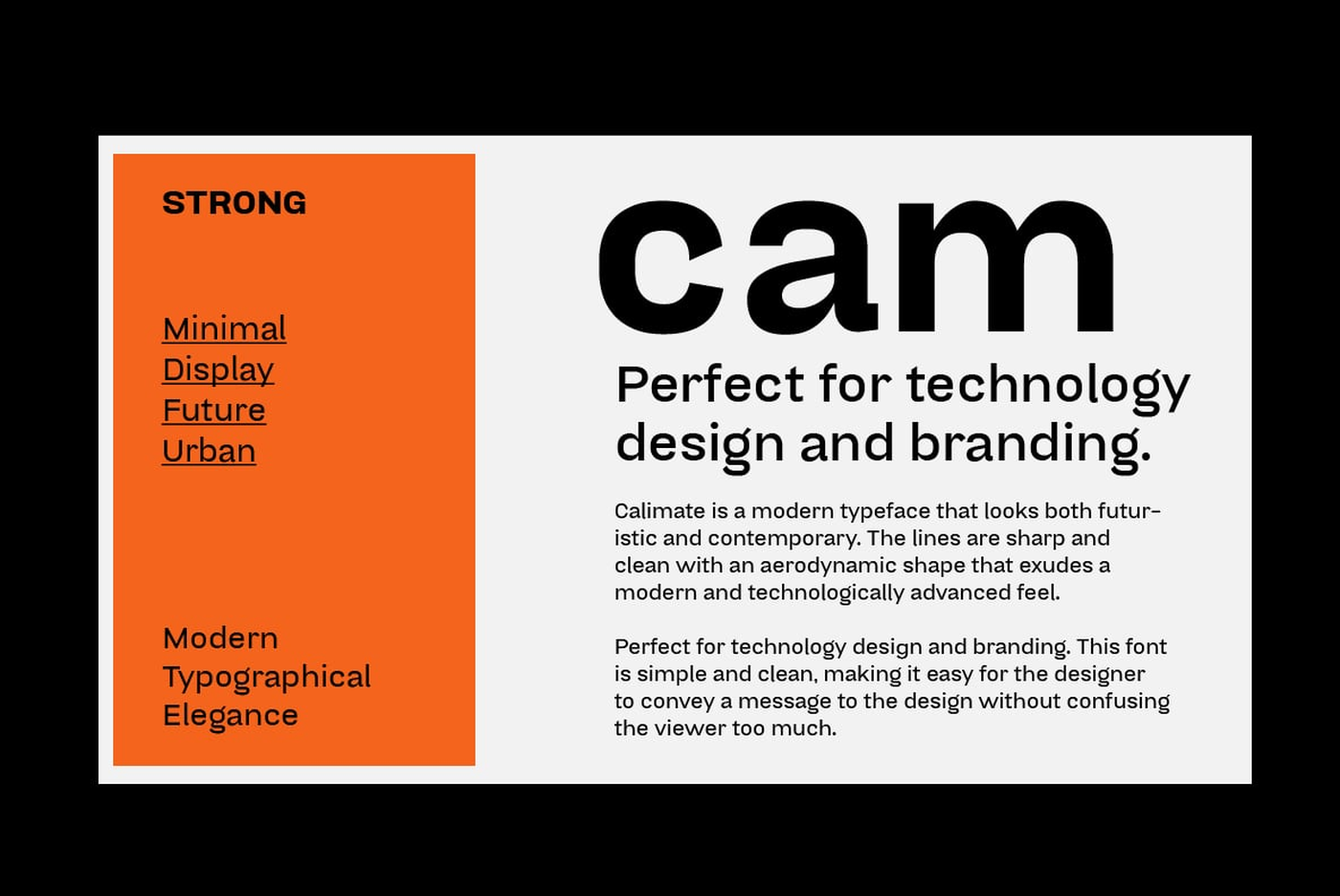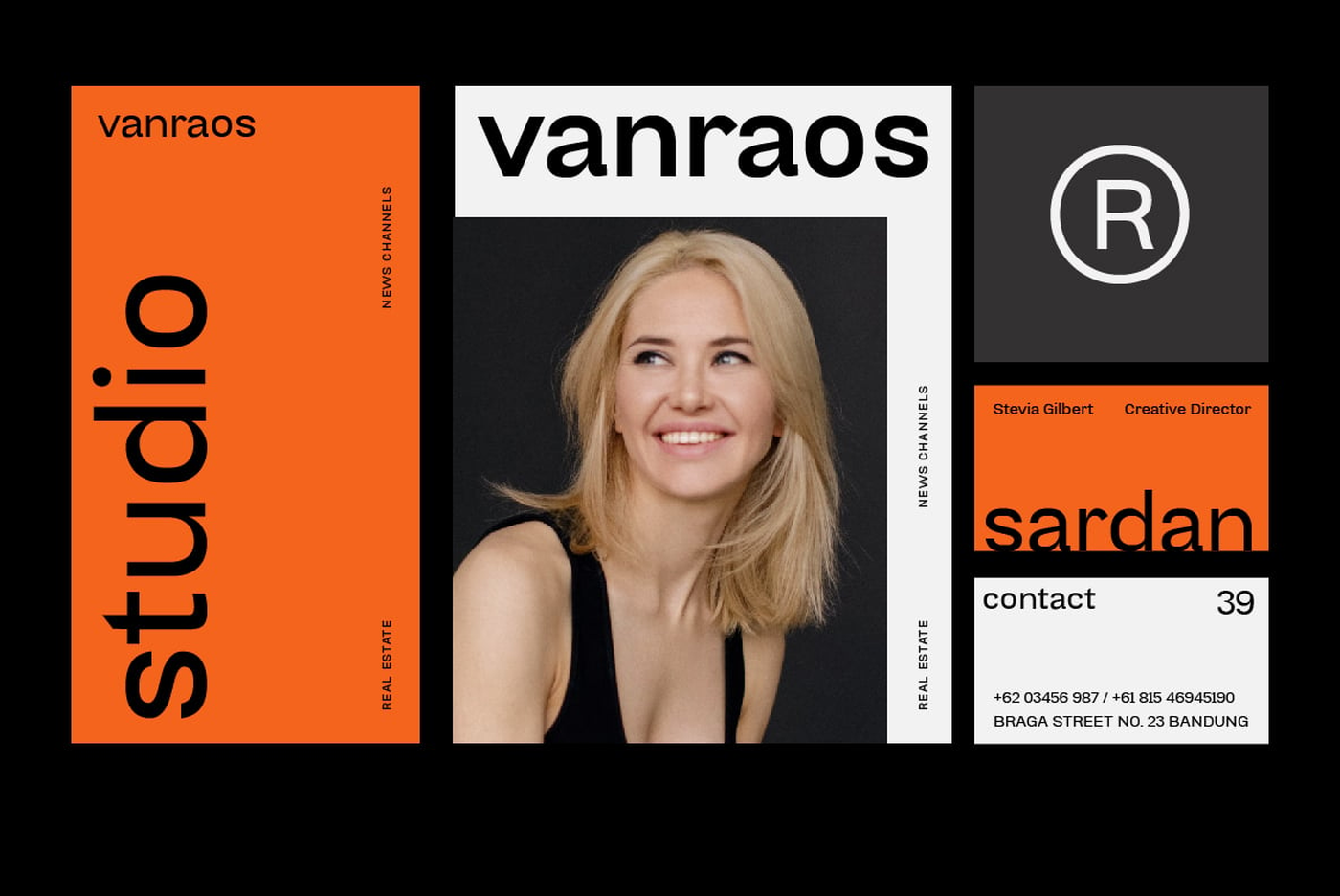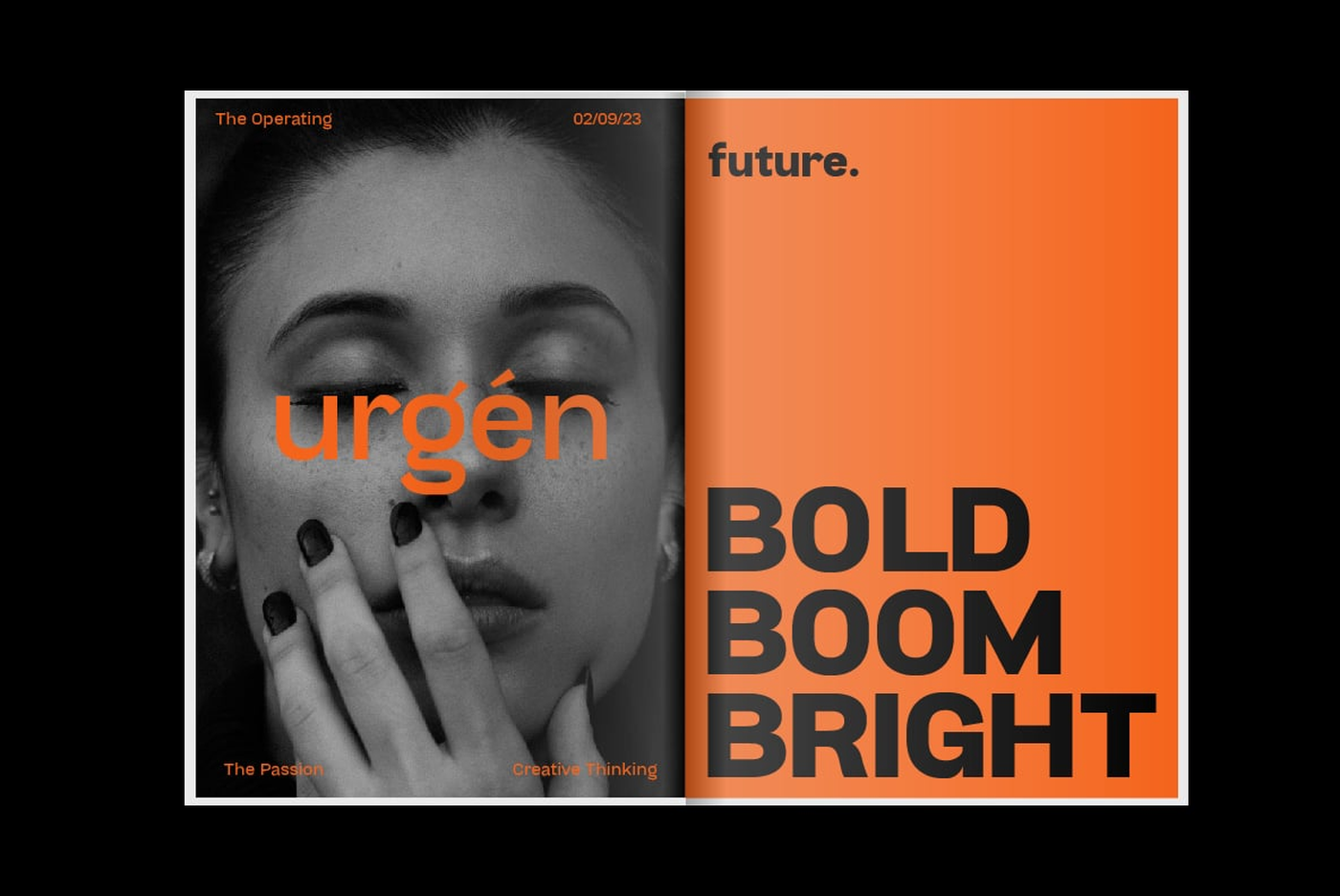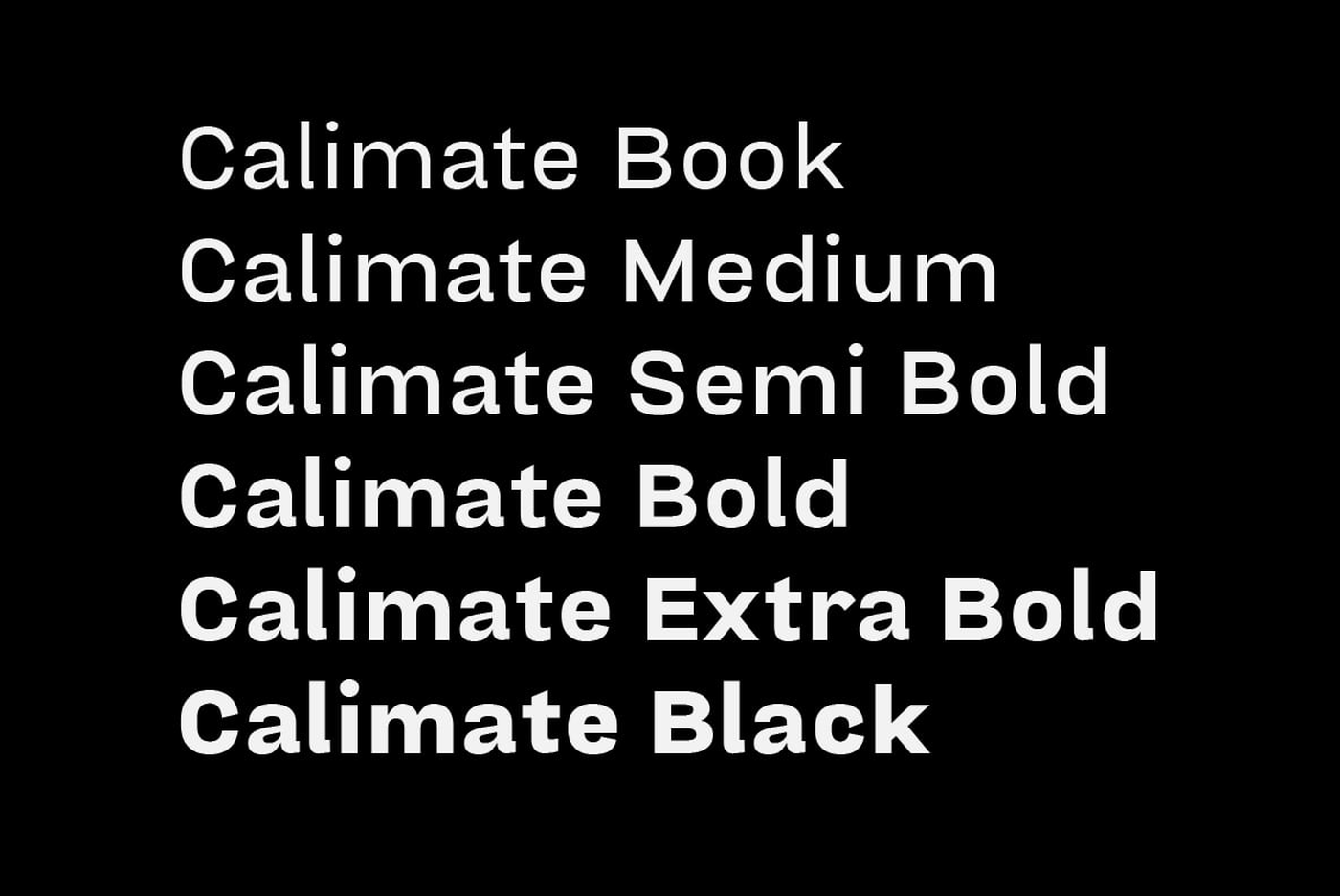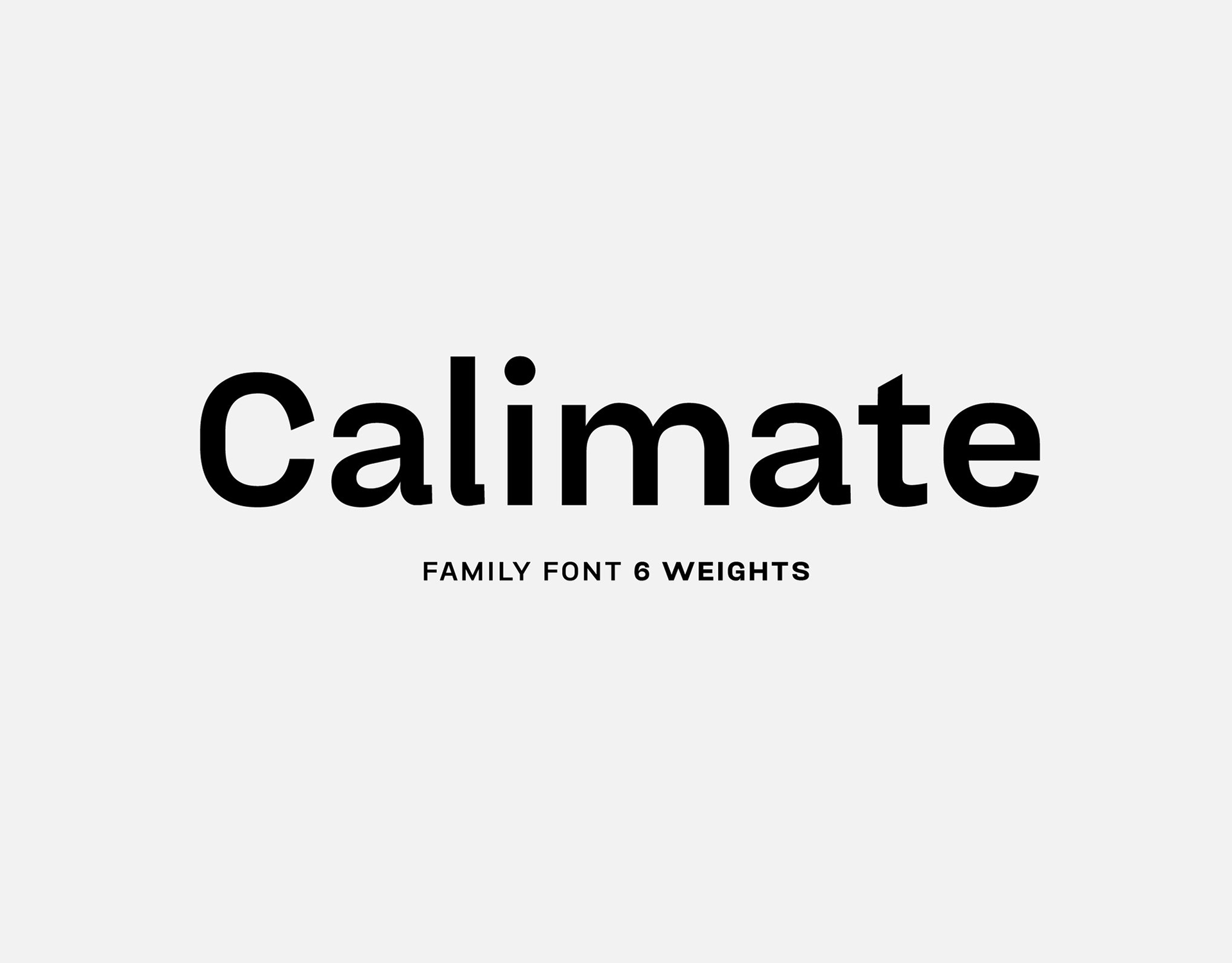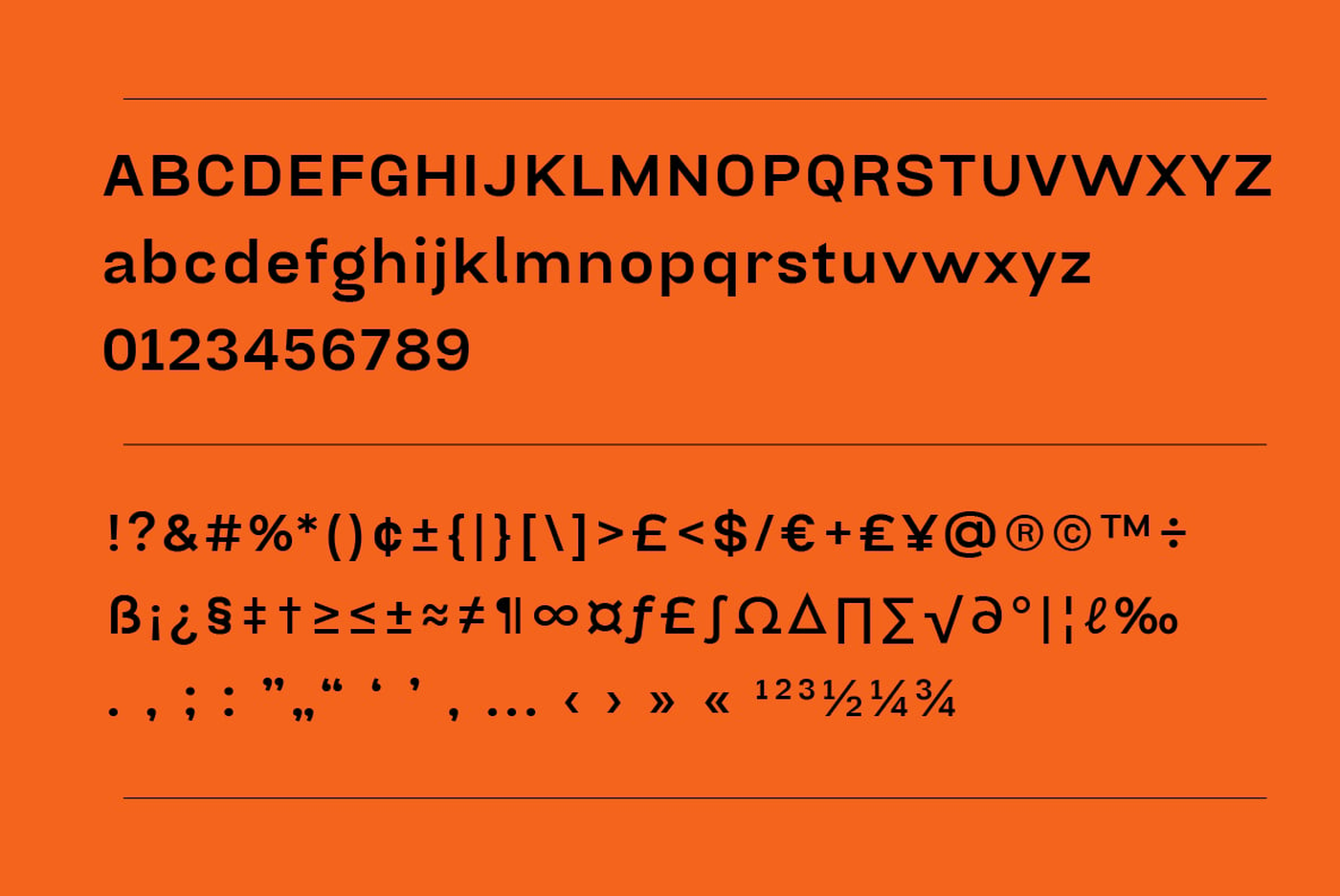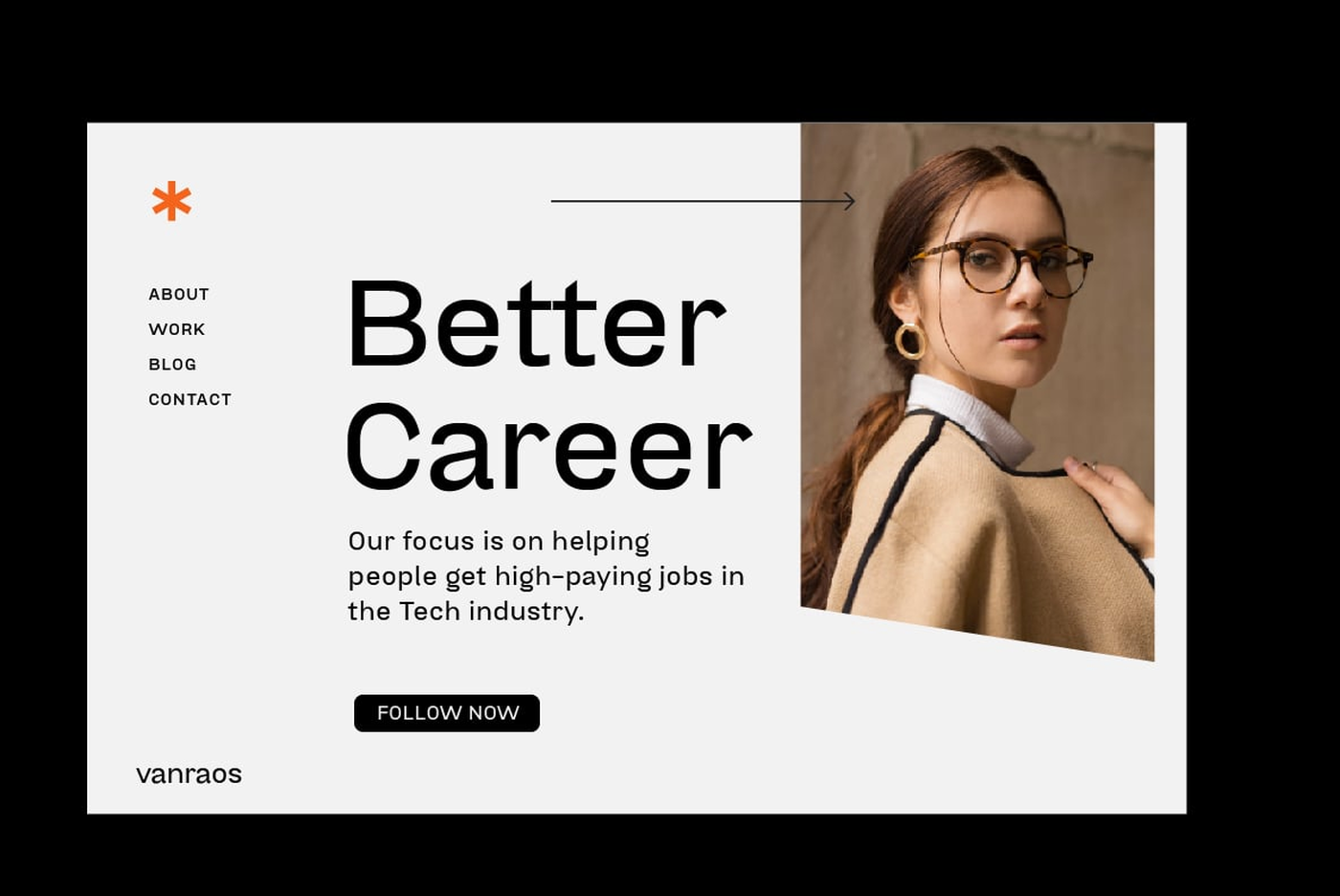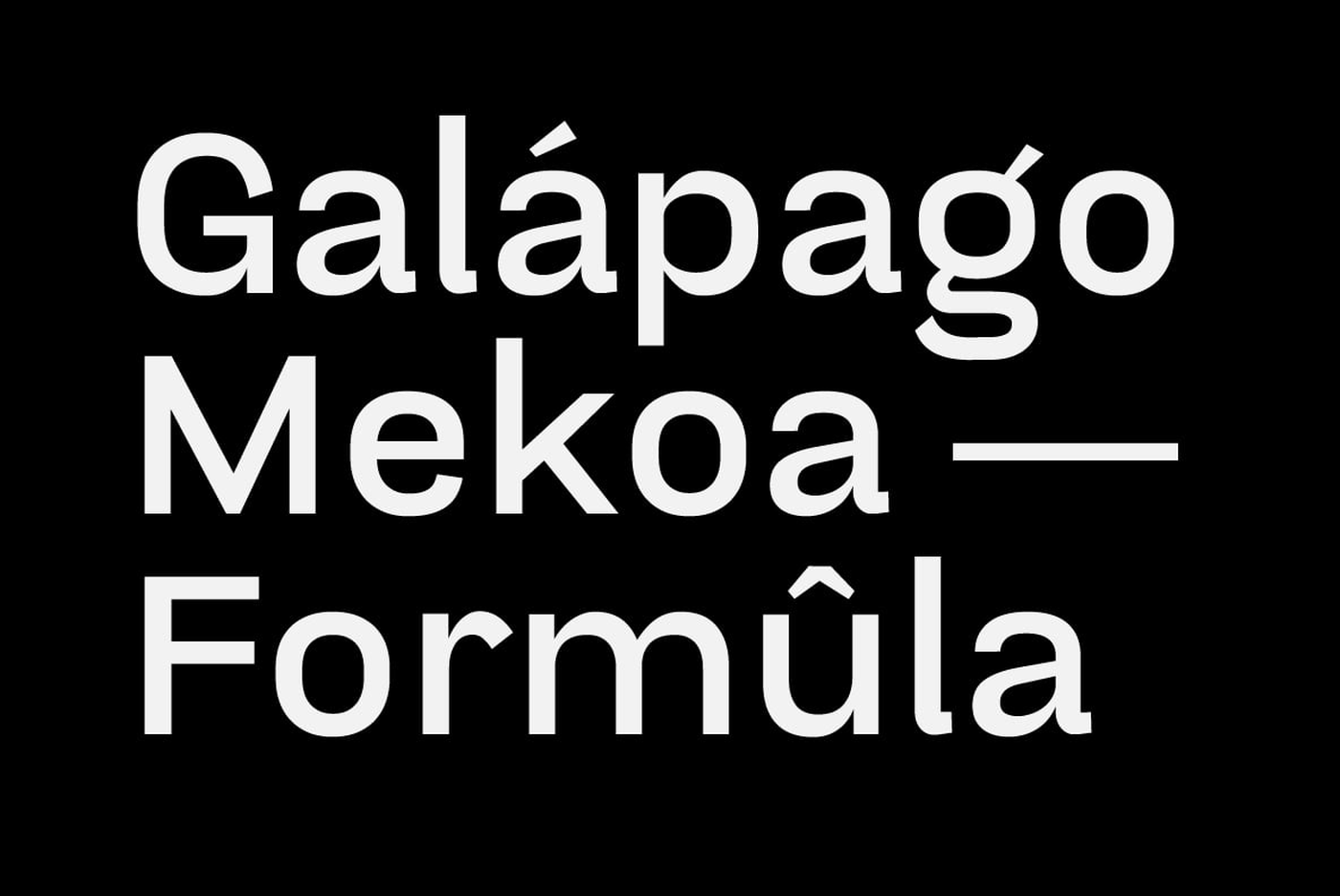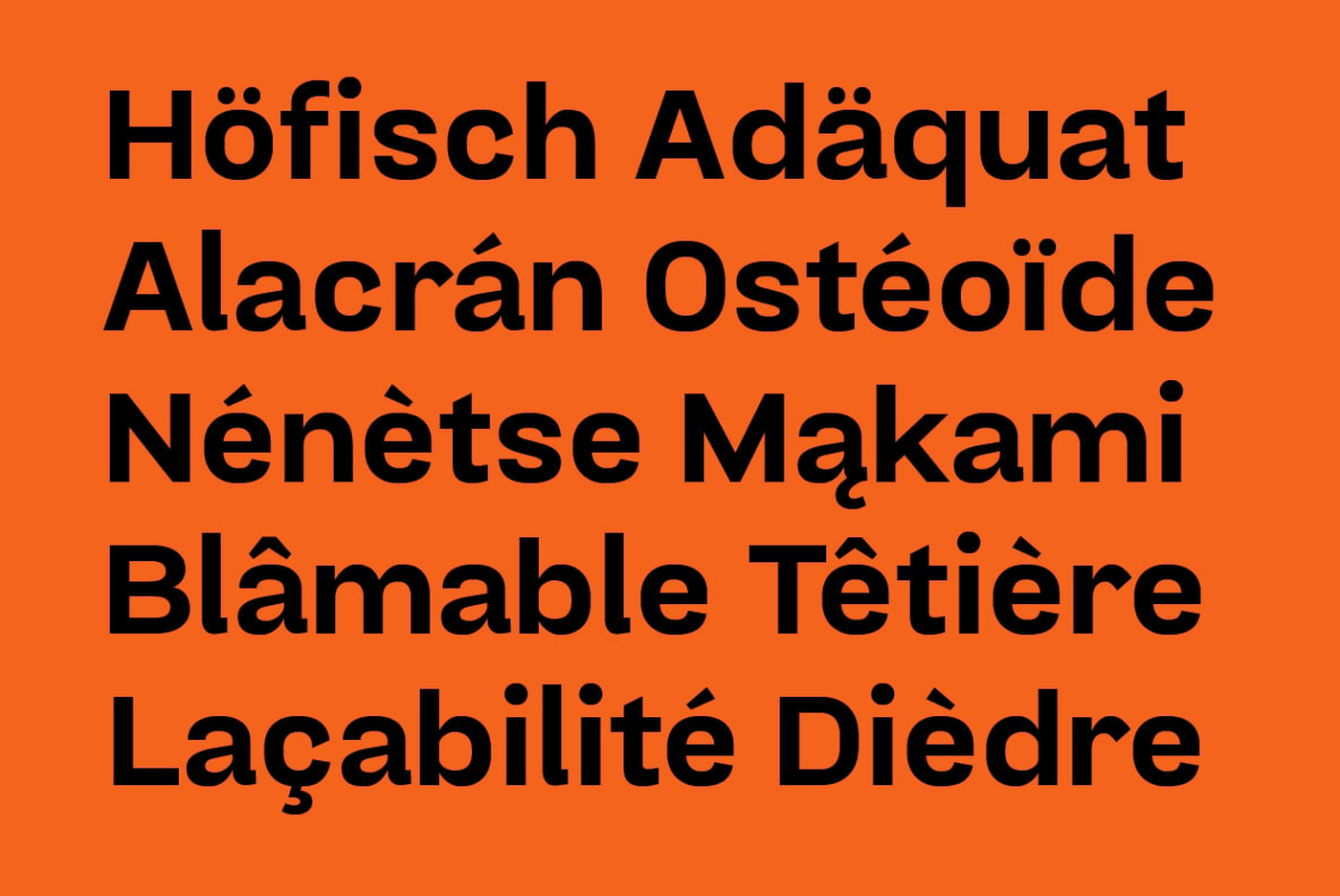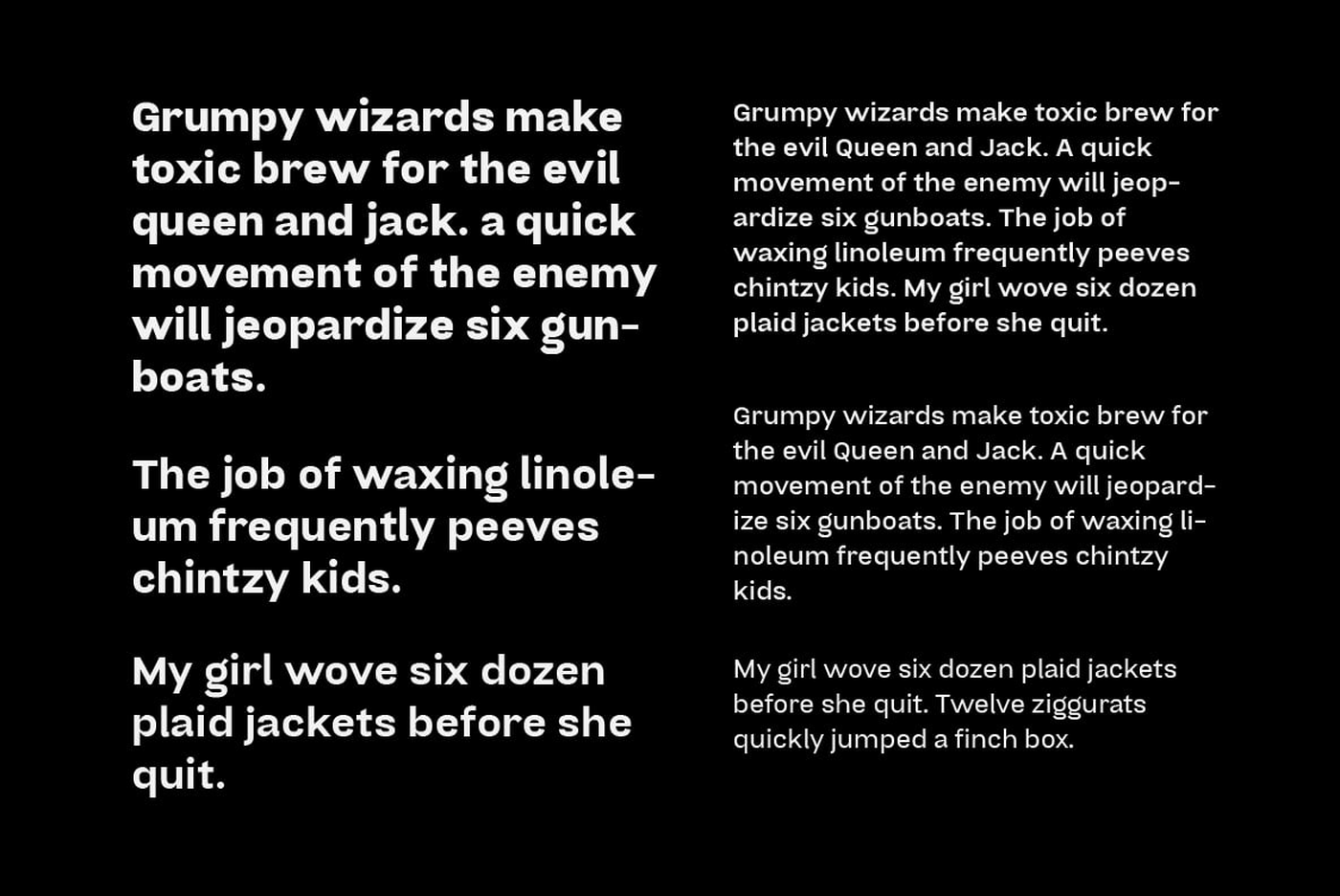
Calimate - Sans Serif Font Family
Calimate Grotesk Sans Serif Font Family is a modern and minimalist typeface with an elegant and trendy touch. With a clean and simple design style, Calimate Grotesk can be used on a variety of projects, from editorial, digital, to print design. Calimate Fonts has 6 weights ranging from book to black so you can adapt it to any design project. Overall, the Calimate Grotesk Sans Serif Font Family is a perfect choice for designers looking for a modern and trendy look.
Font: Calimate